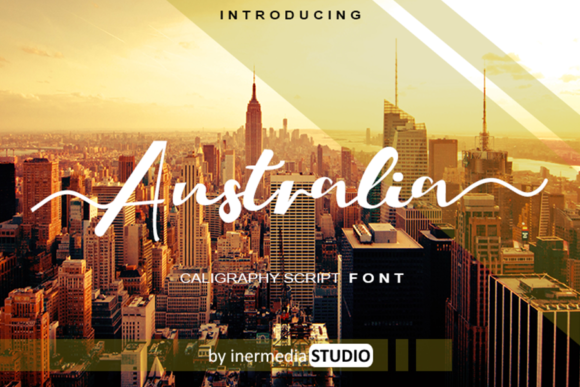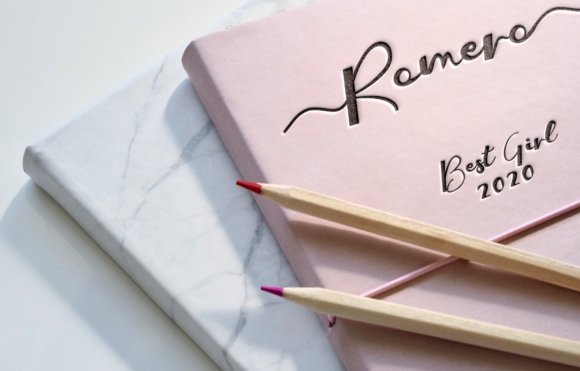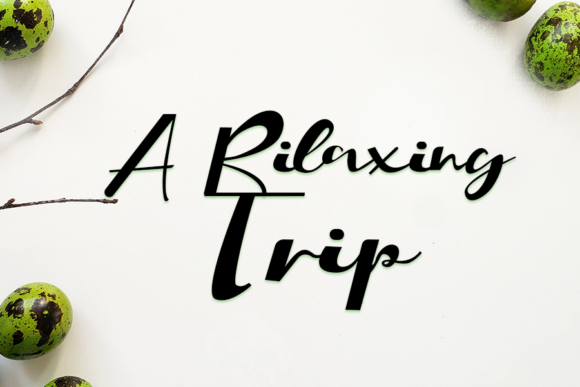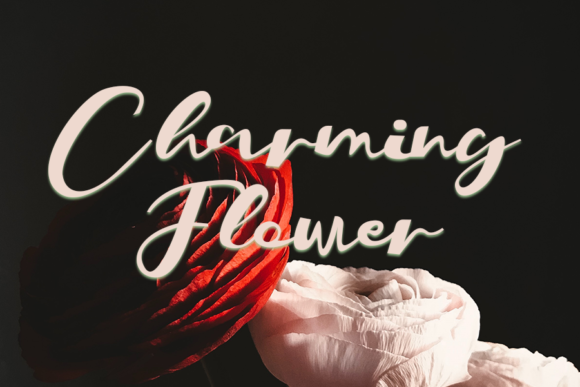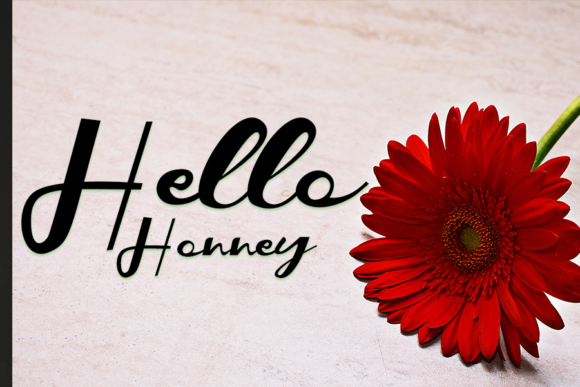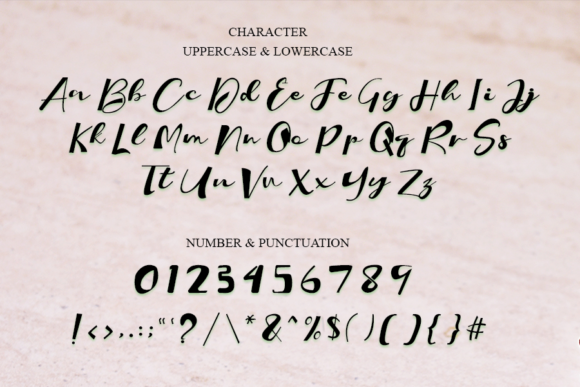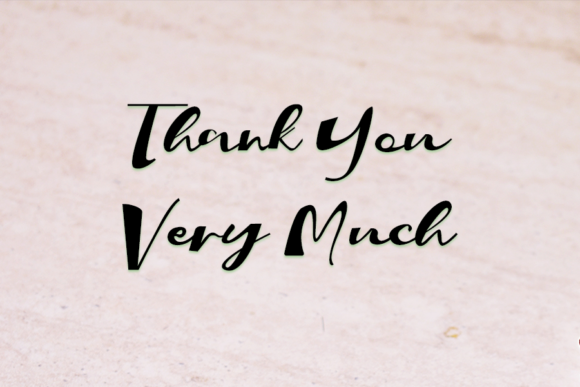
Australia Font
About Australia Font
Australia is a beautiful, timeless handwritten font. It was created with the help of a stunning brush pen. Use this gorgeous and unique font to bring any DIY project to life!